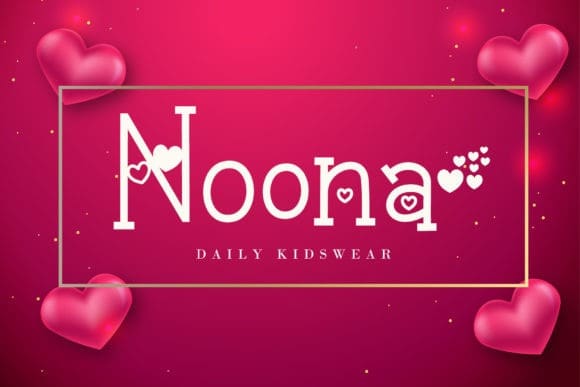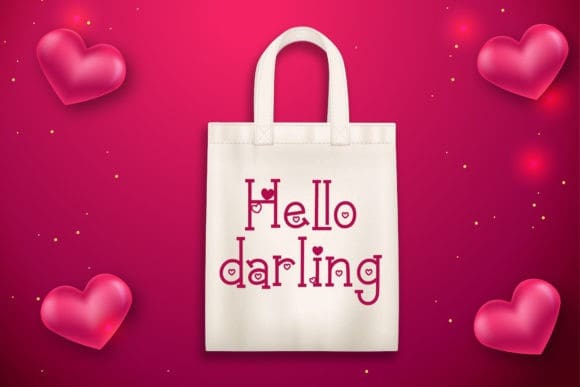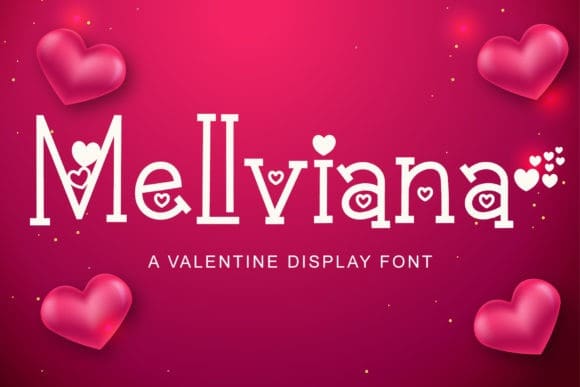
Mellviana Display Font
Mellviana Display Font is a quirky display font featuring lovely ornaments. This font is perfect for romantic themed designs, especially when combined with pink or bright colors. It is PUA encoded which means you can access all of the glyphs and swashes with ease!